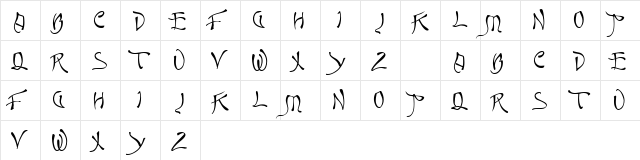
Quasi Regular Font Preview
Quasi Regular
Quasi Regular Font Details
Design Context for Quasi Typeface
Quasi is a composed and adaptable typeface that performs quietly and consistently across a wide range of design contexts.